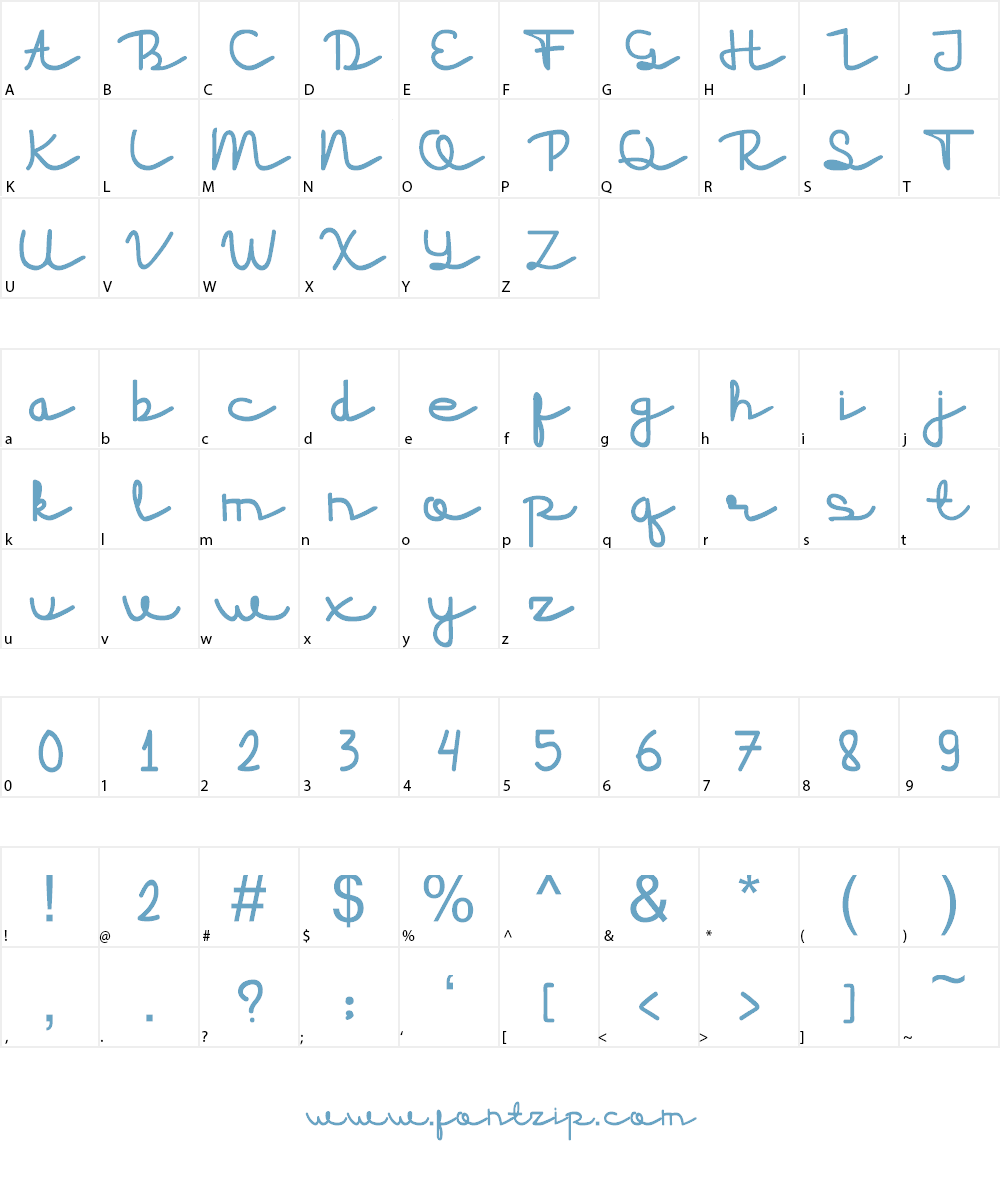
Carlington is a monoline script font, which can be used for your design needs, such as POSTER, MAGAZINE, SIGNATURE, FLYER, BROCHURES, QUOTES, BUSINESS CARDS, COVER BOOK, FILM, etc. can use Mac & Windows